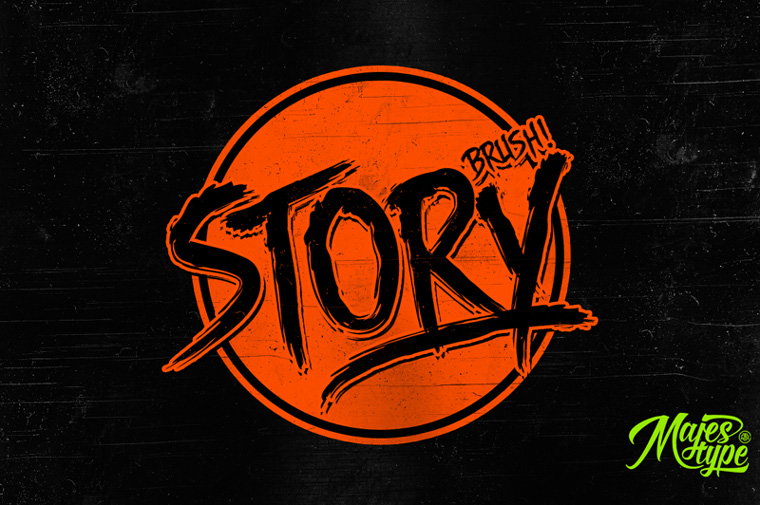
Story Brush is a highly detailed brush font that comes with over 240 glyphs. The font comes with 2 verisons, regular and slanted. Story Brush is equipped with OpenType so you can give a custom feel to your designs. Story Brush can be used in t-shirt designs, logos, horror-genre and grunge designs, and many more.